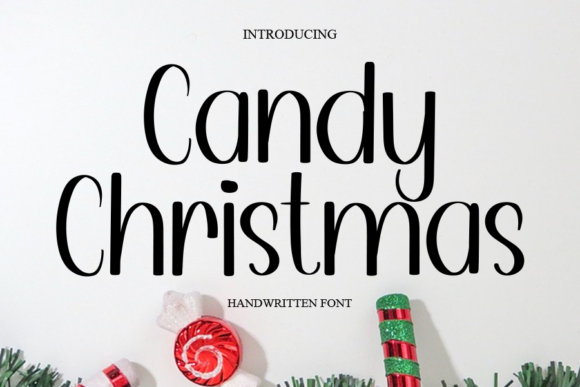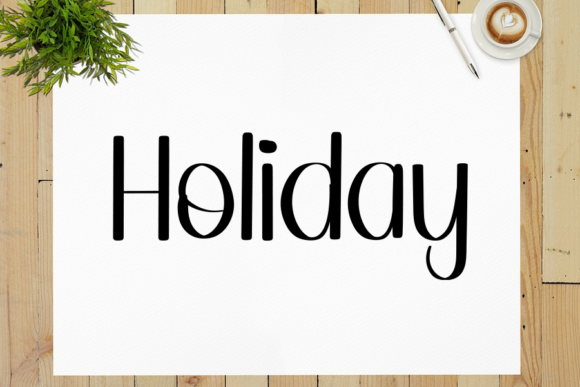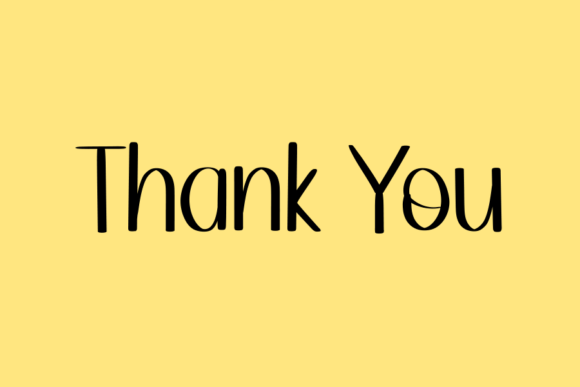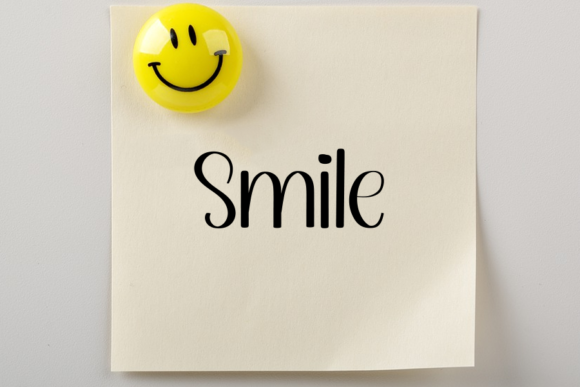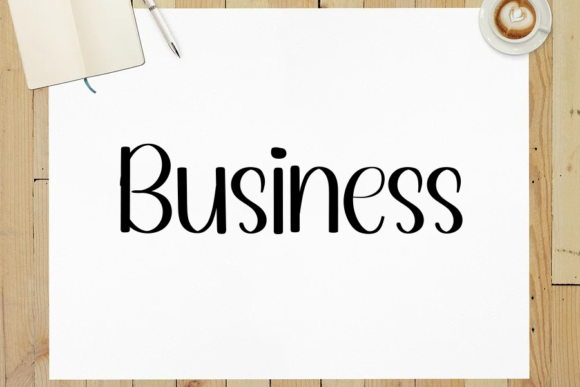
About Candy Christmas Font
Candy Christmas is a lovely handwritten font featuring charming, playful characters that seem to dance along the baseline. Add this font to your most creative ideas, and notice how it makes them stand out!